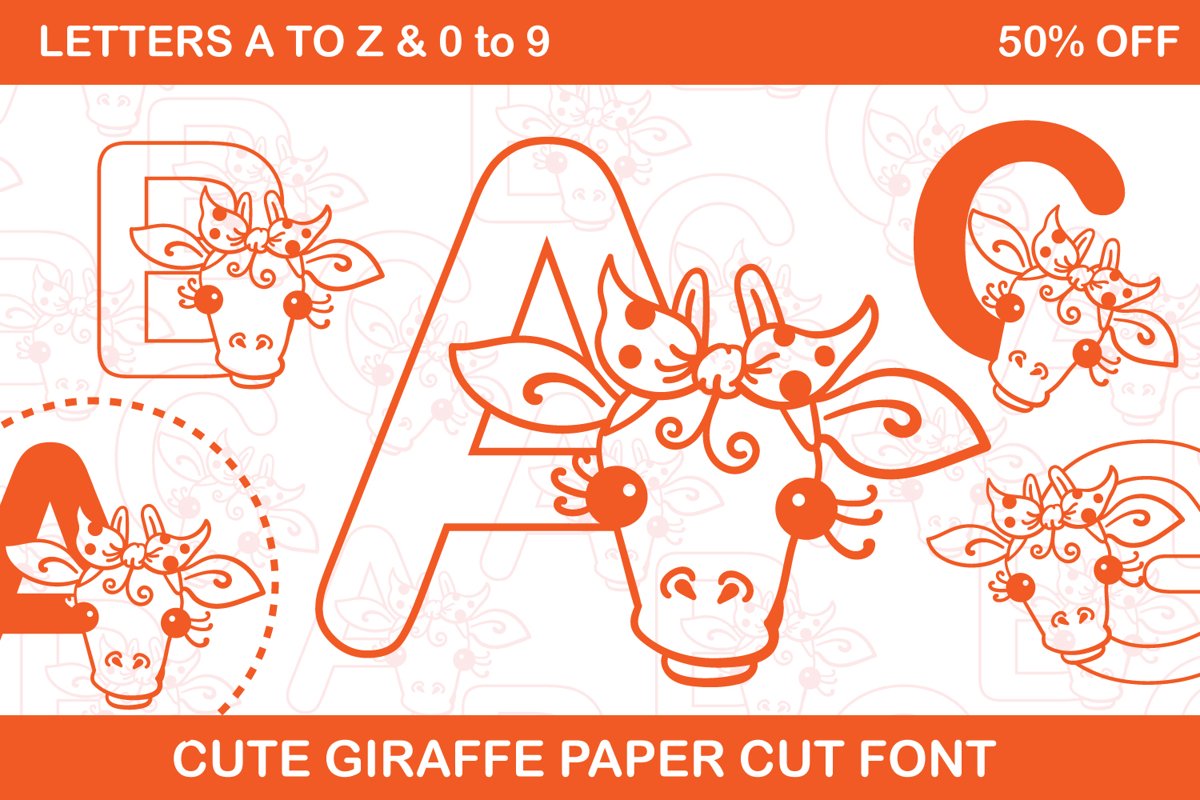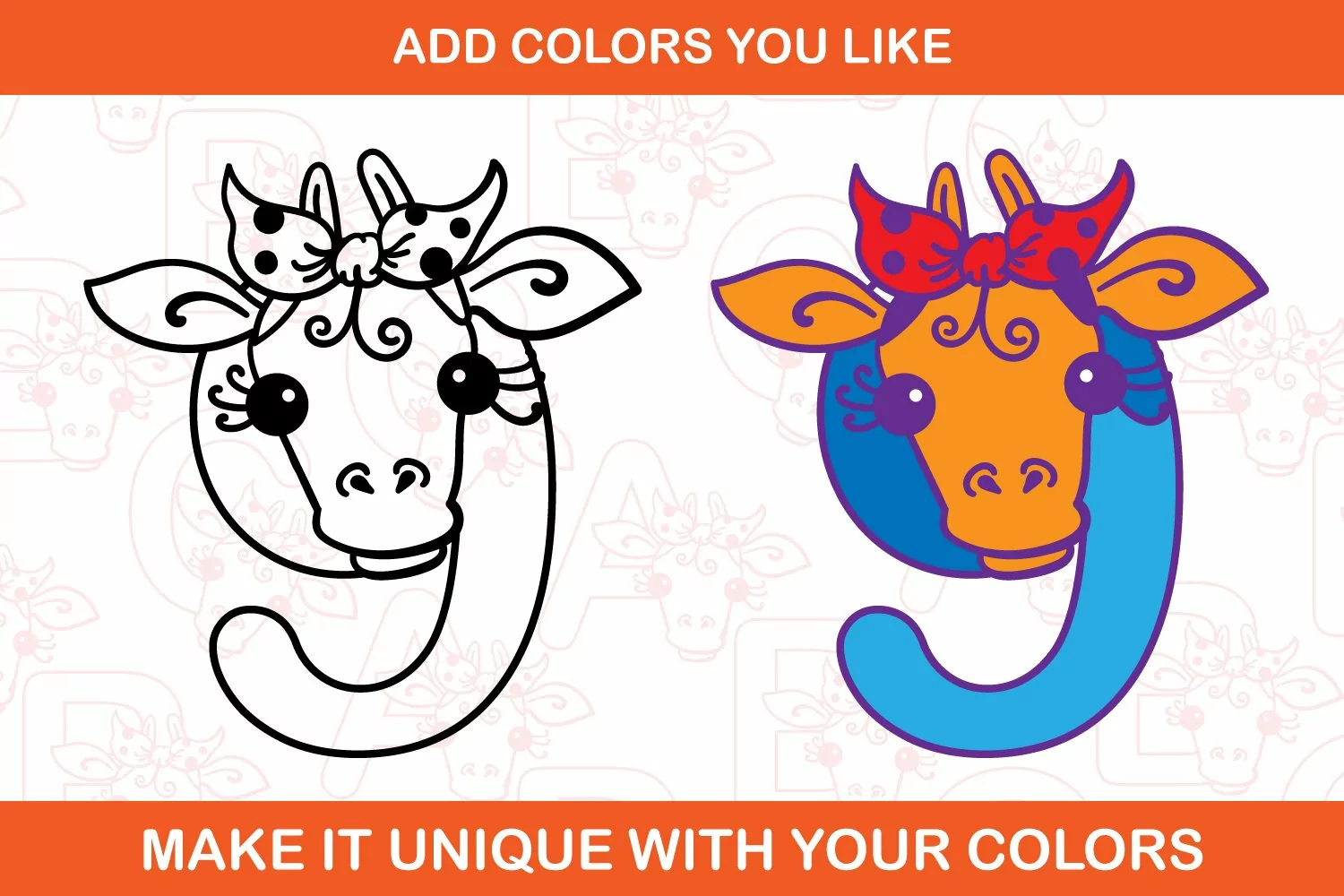
Presenting Cute font for you. Alpha Giraffe Cute Paper cut Style Coloring Book Font can be used in tons of projects specially for child and new born projects. You can use it for craft purpose and this will looks great on shirts, printing material and other stuff.
2- UPPER Case only Letters A to Z and 0 to 9
3- Super Cute and Creative
AlphaGiraffe